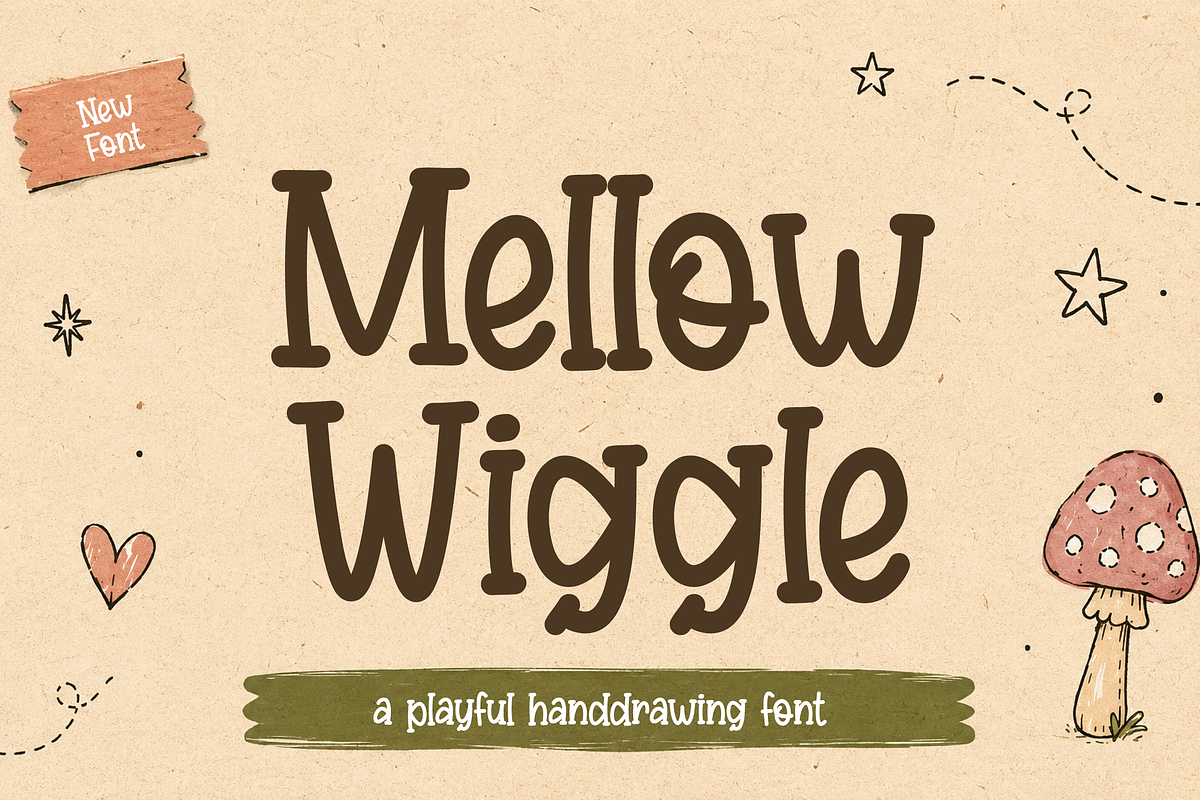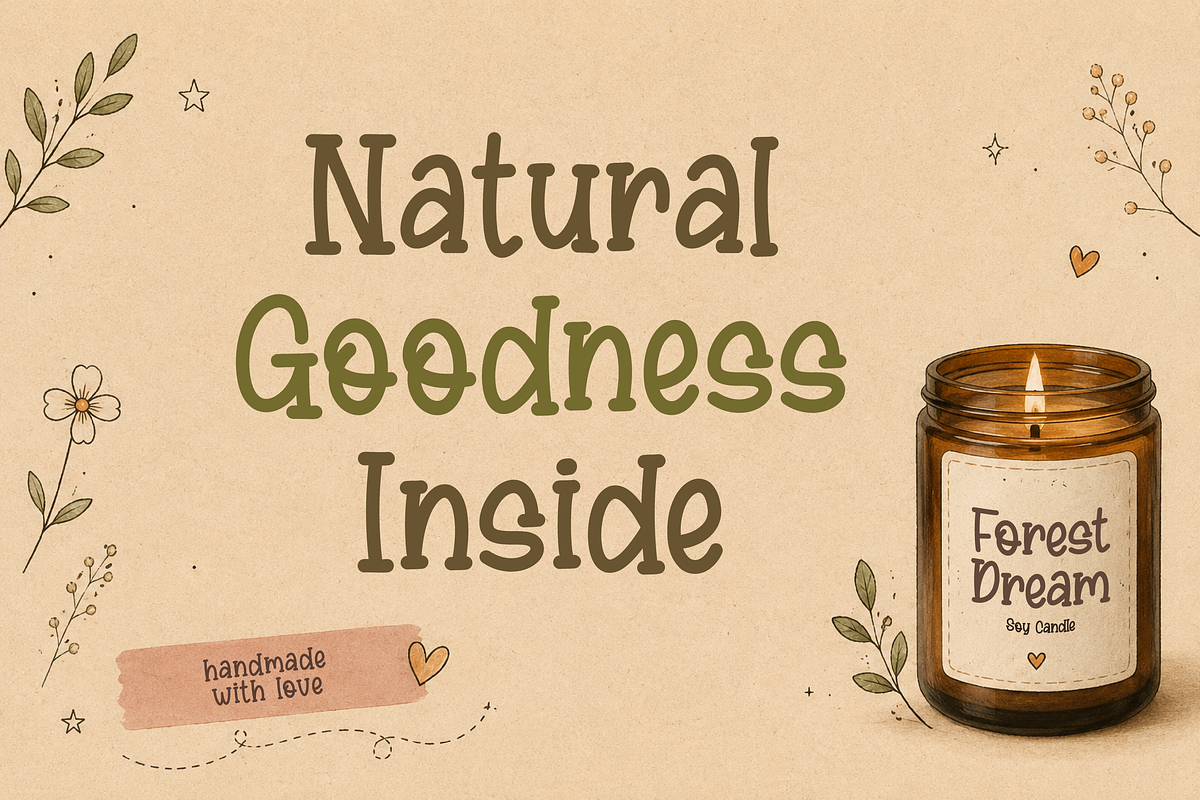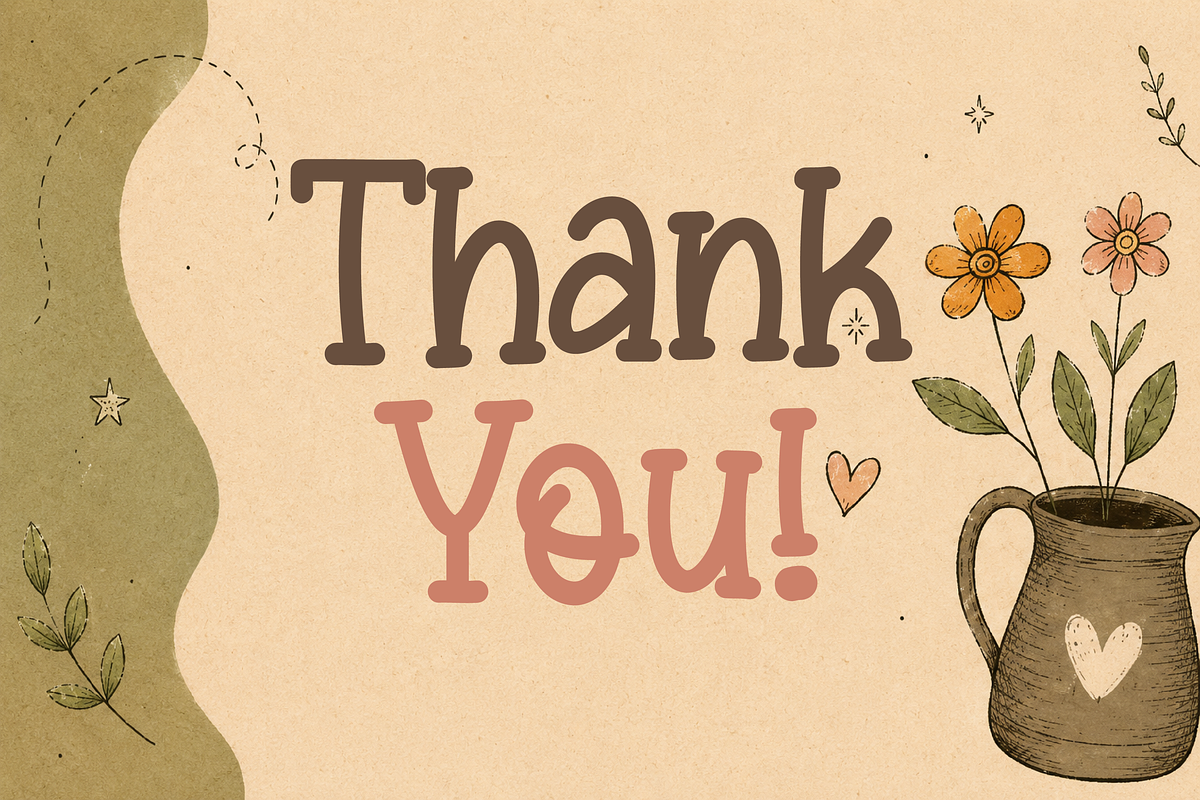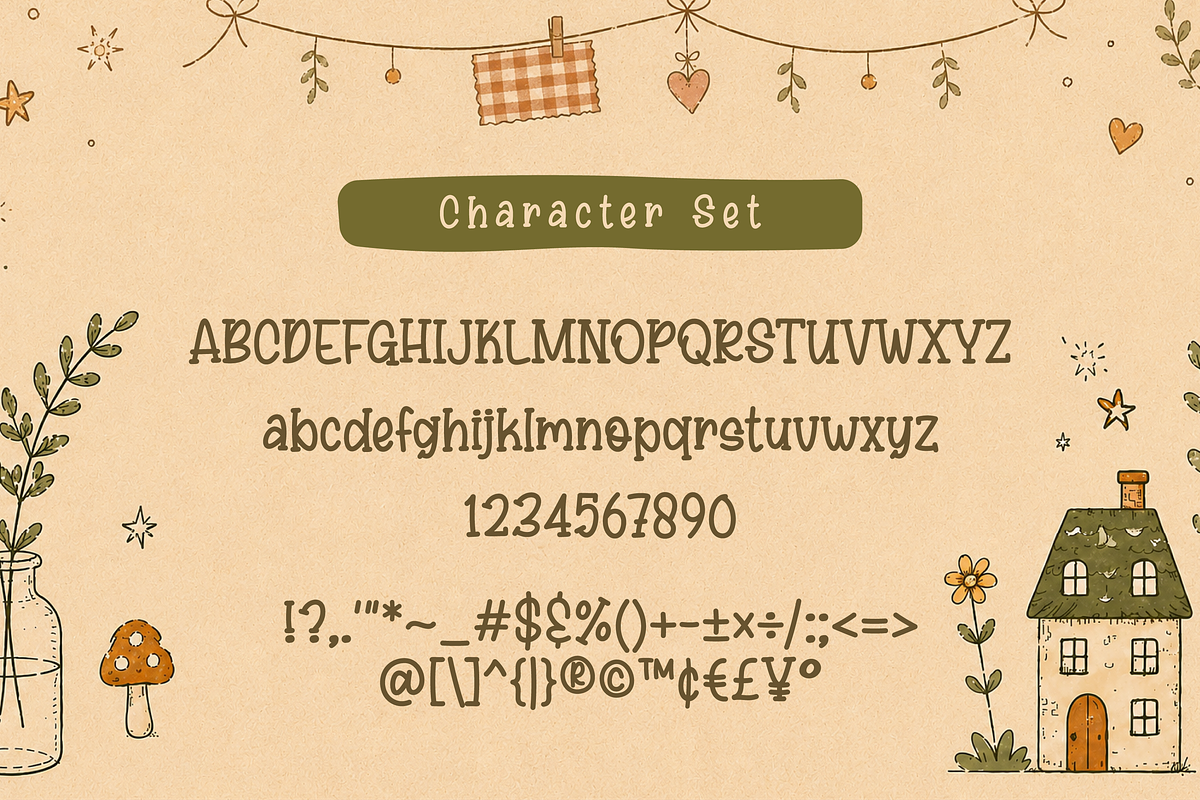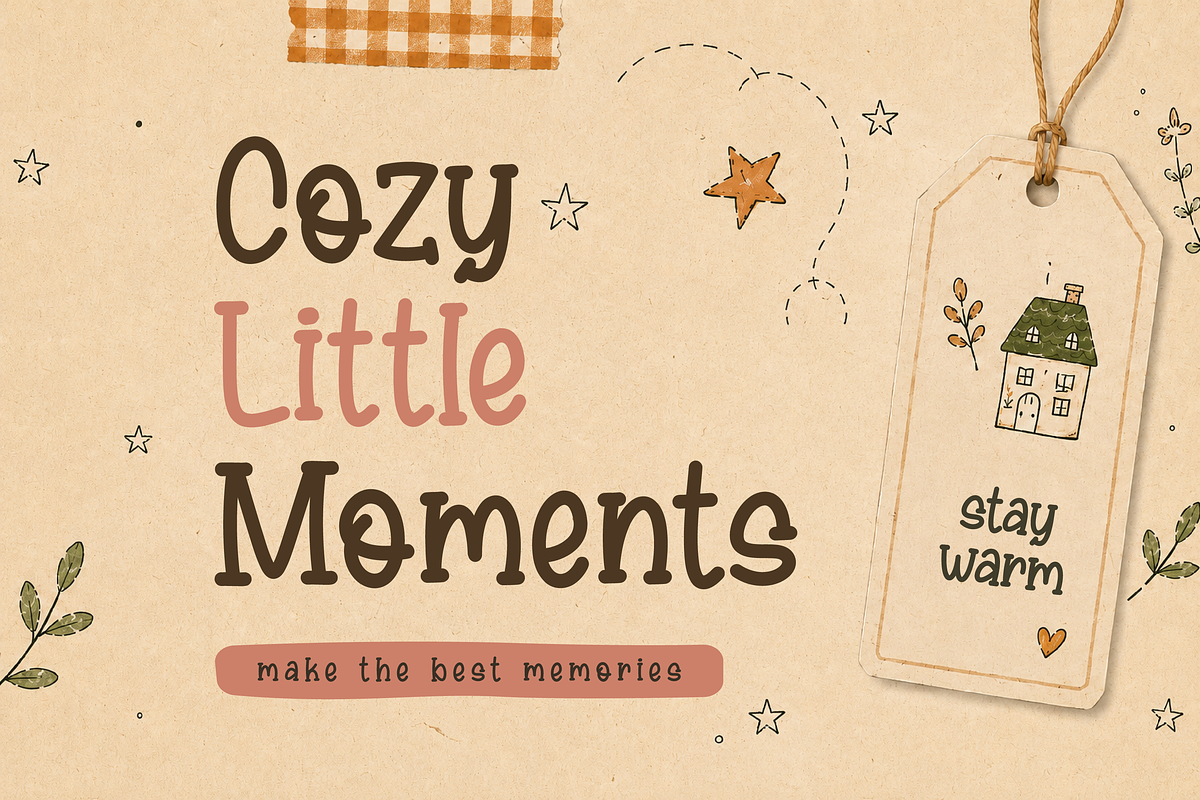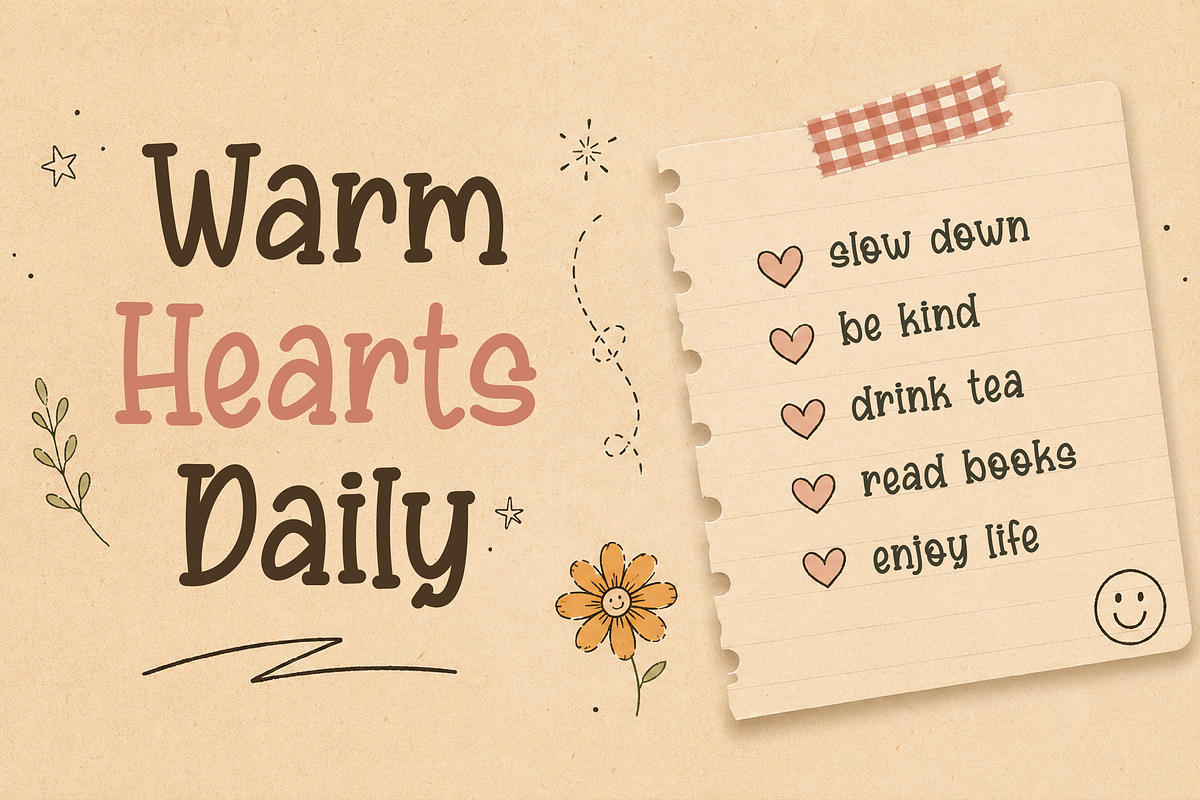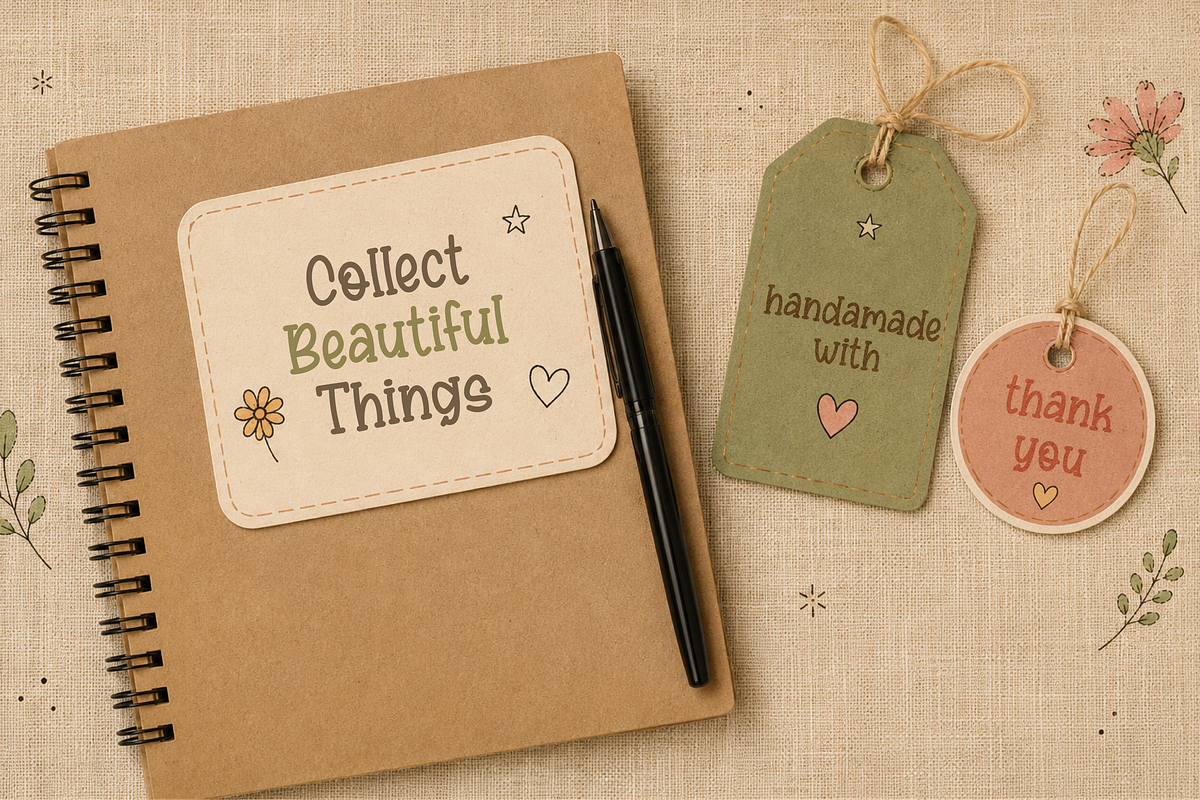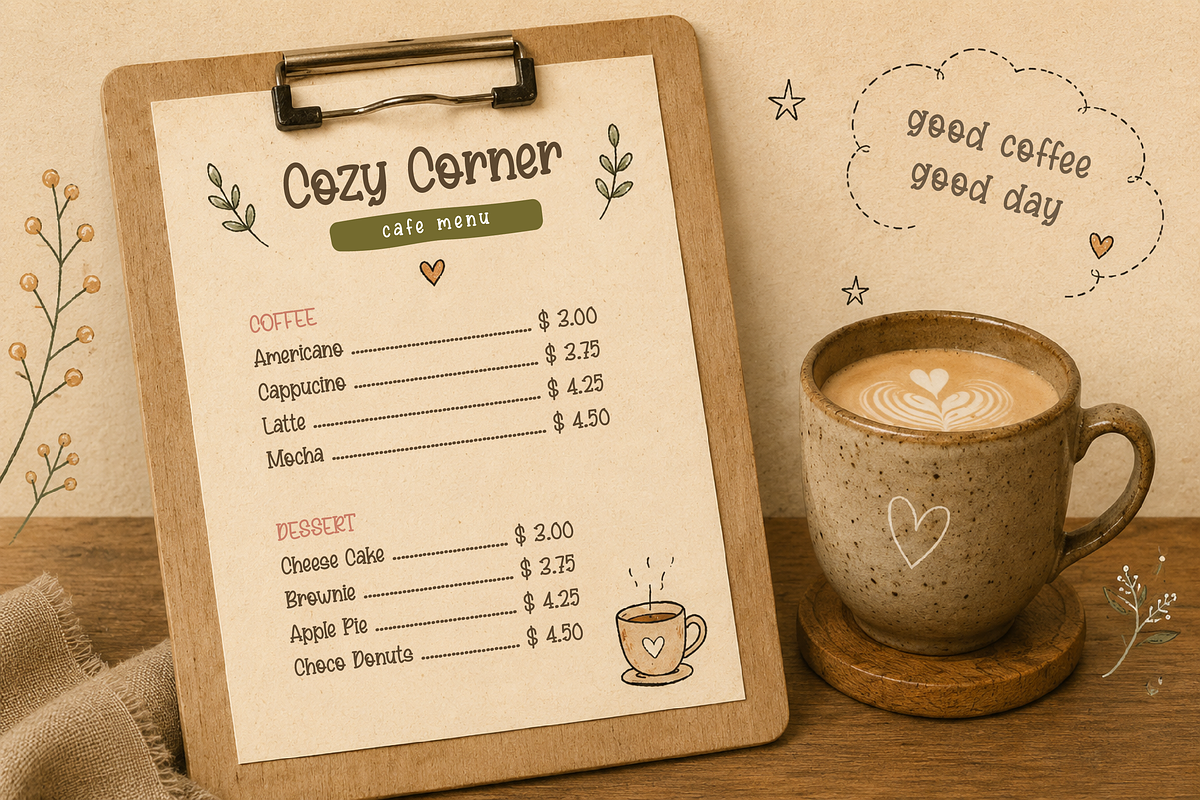
Mellow Wiggle - Playful Handdrawing
Mellow Wiggle - Playful Handdrawing Font
Mellow Wiggle is a playful handdrawing font with a warm, whimsical, and cheerful personality. Its organic curves and imperfect handmade style create a fun and friendly appearance that feels natural, cute, and full of charm.
Designed with a casual hand-lettered touch, Mellow Wiggle is perfect for children’s books, playful branding, greeting cards, social media content, posters, packaging, stickers, craft projects, and creative designs that need a soft and joyful vibe.
The font combines readability with artistic character, making every word feel expressive, cozy, and delightfully handmade.